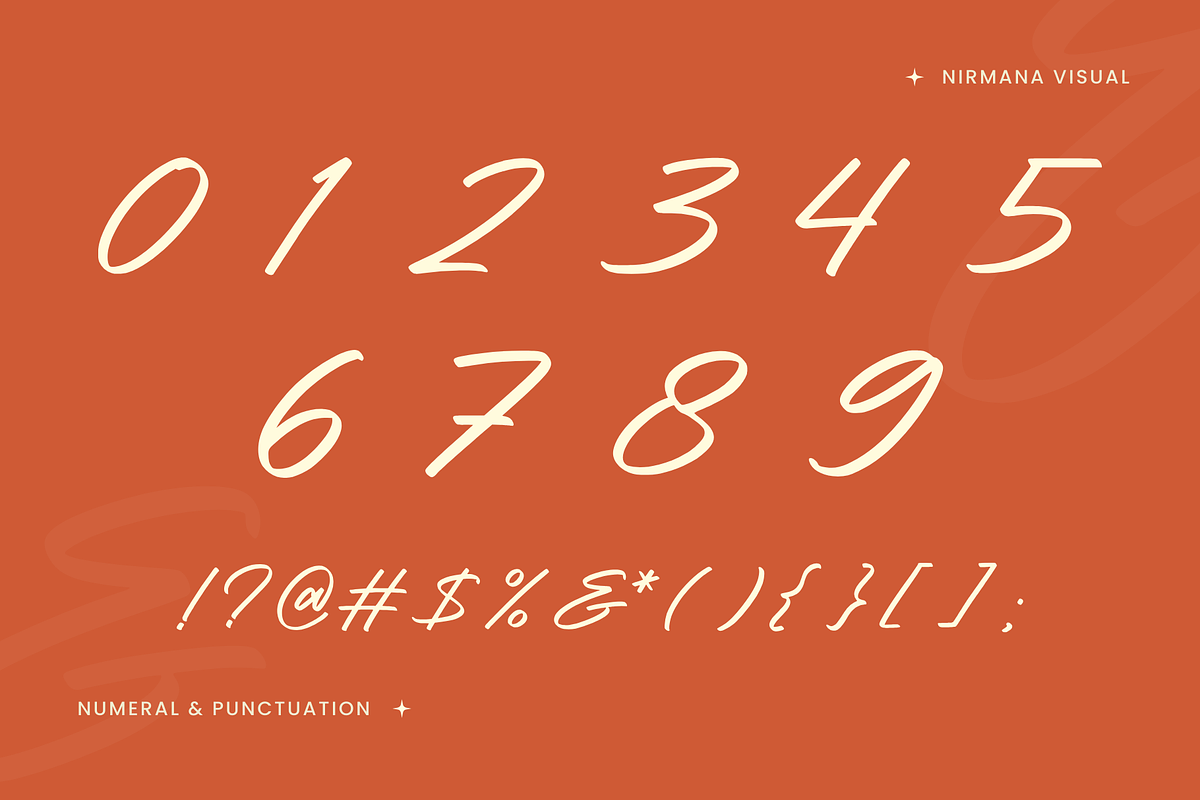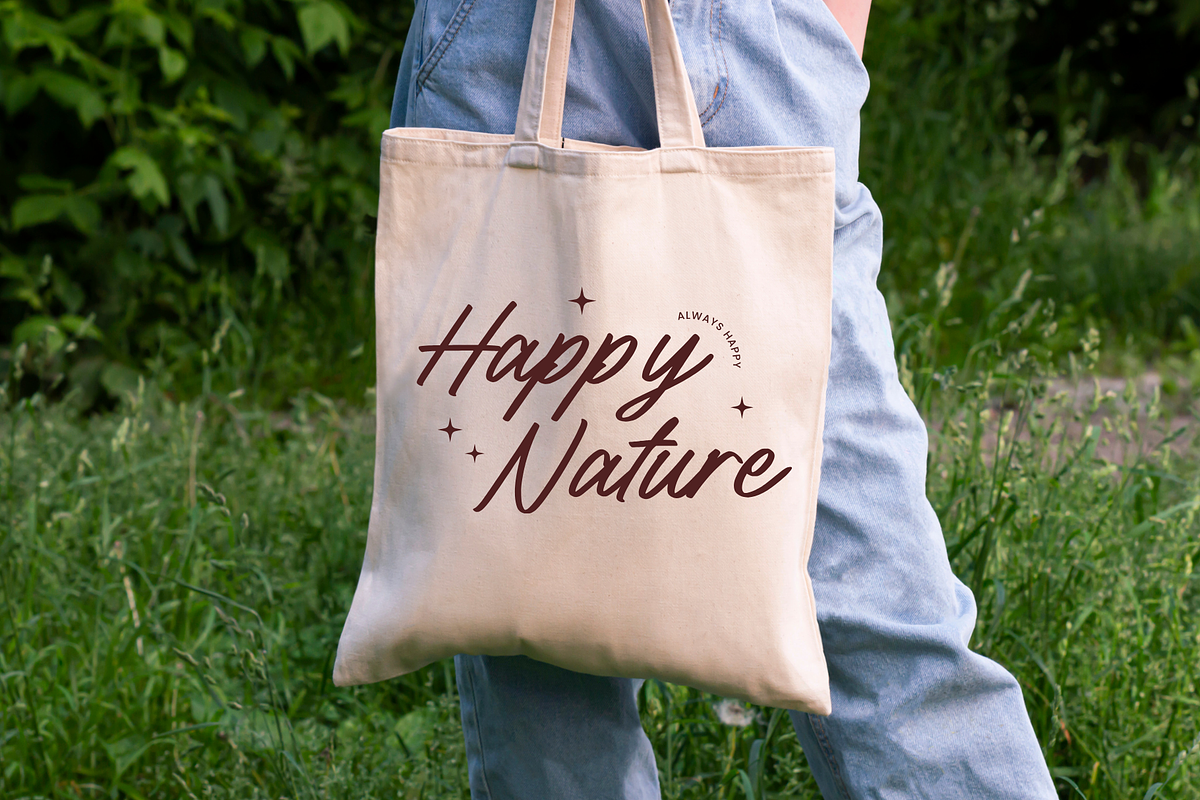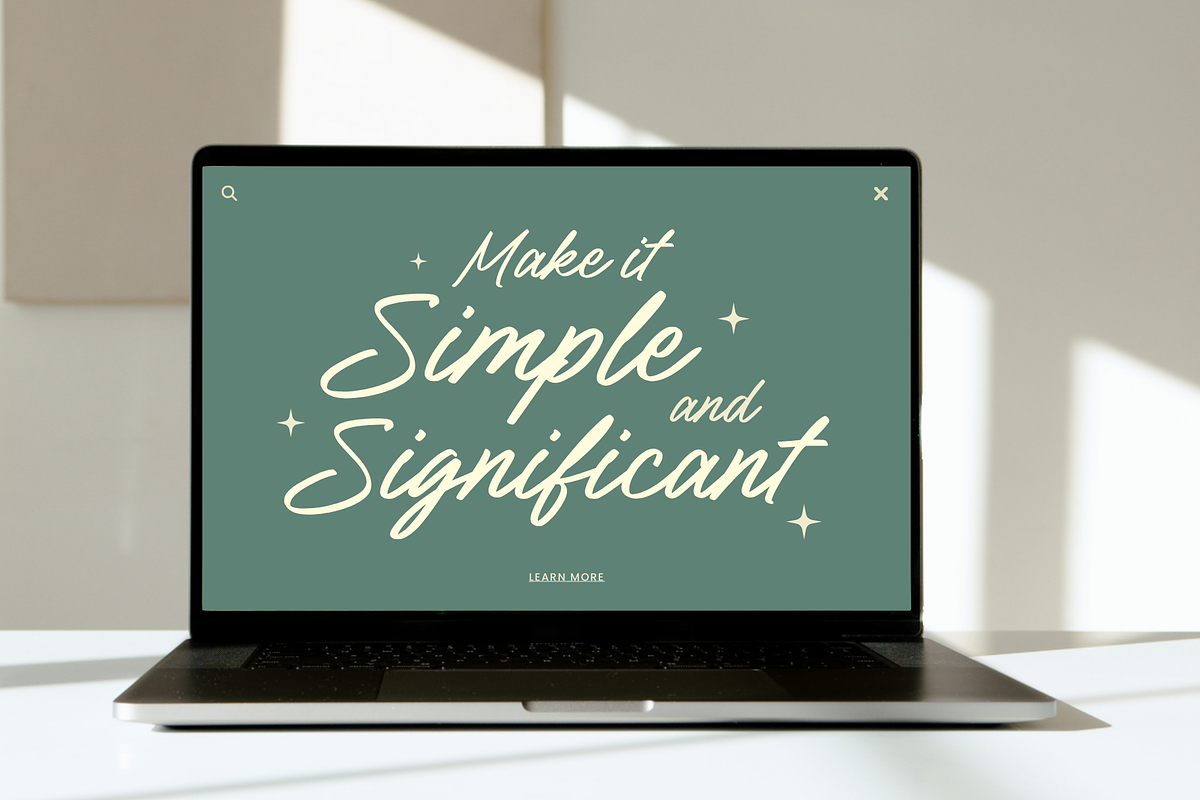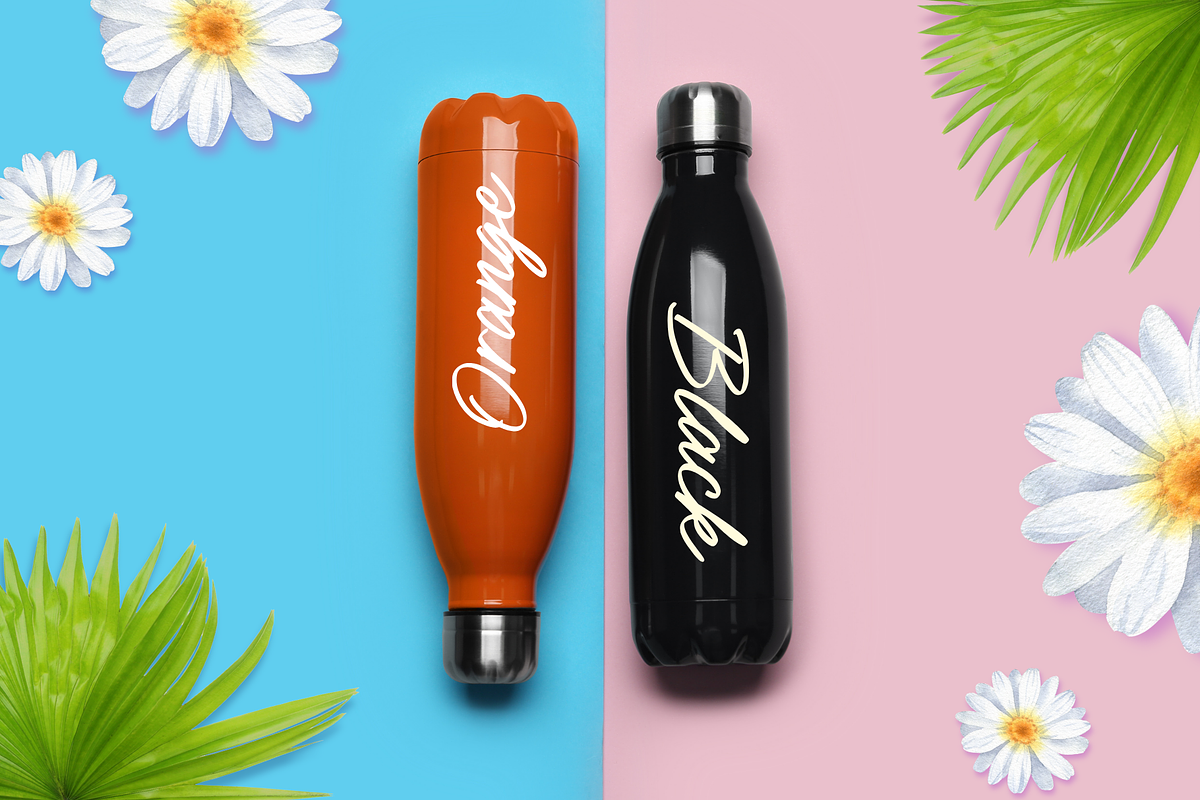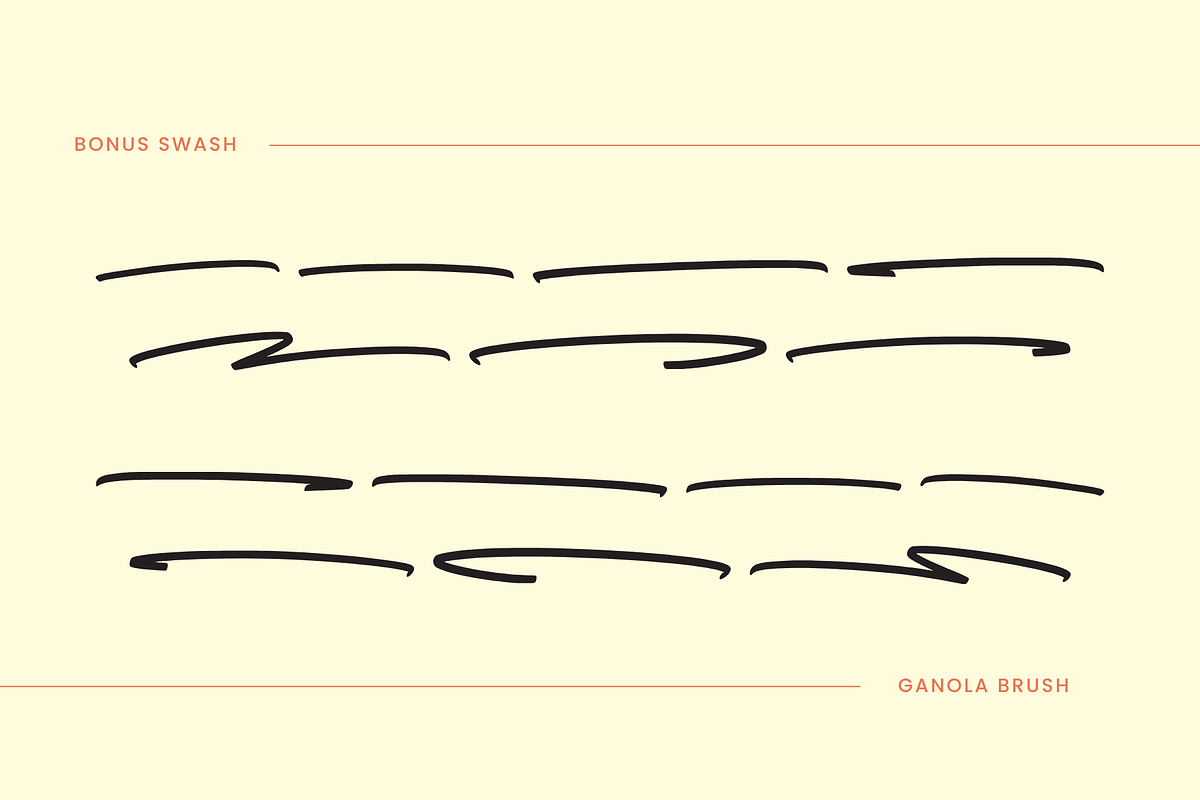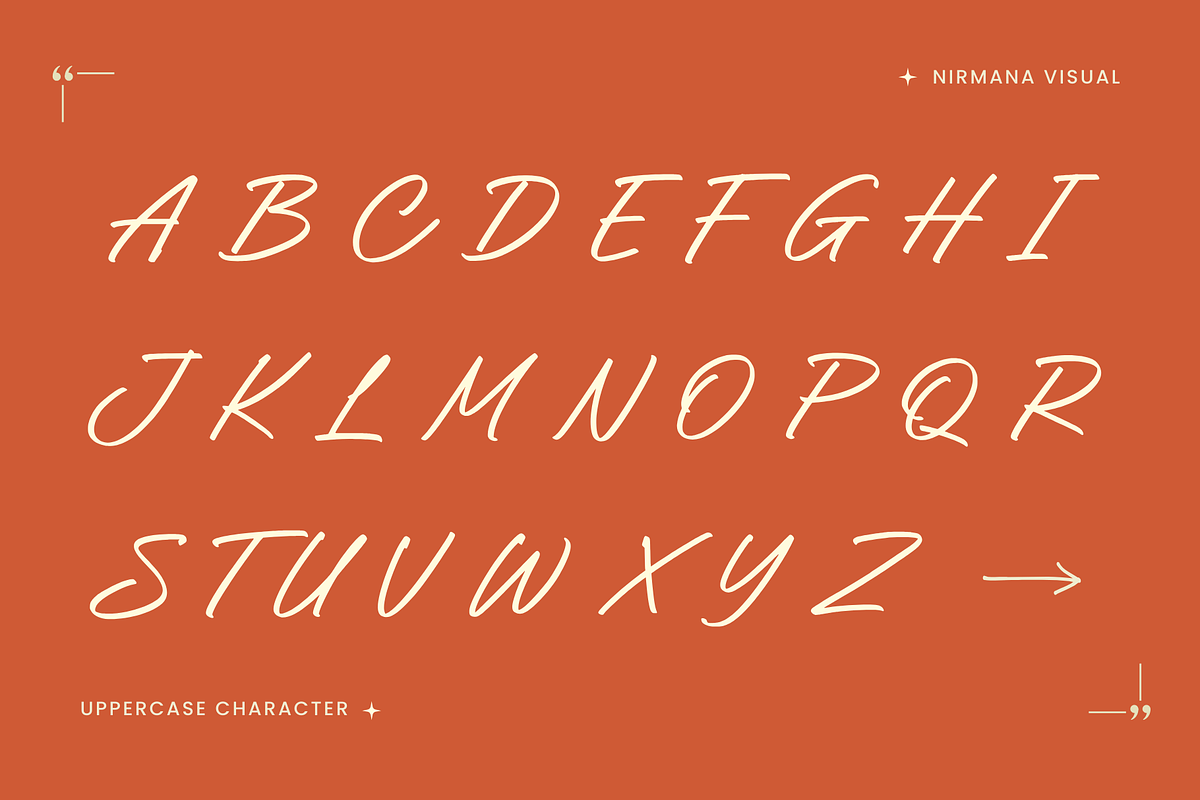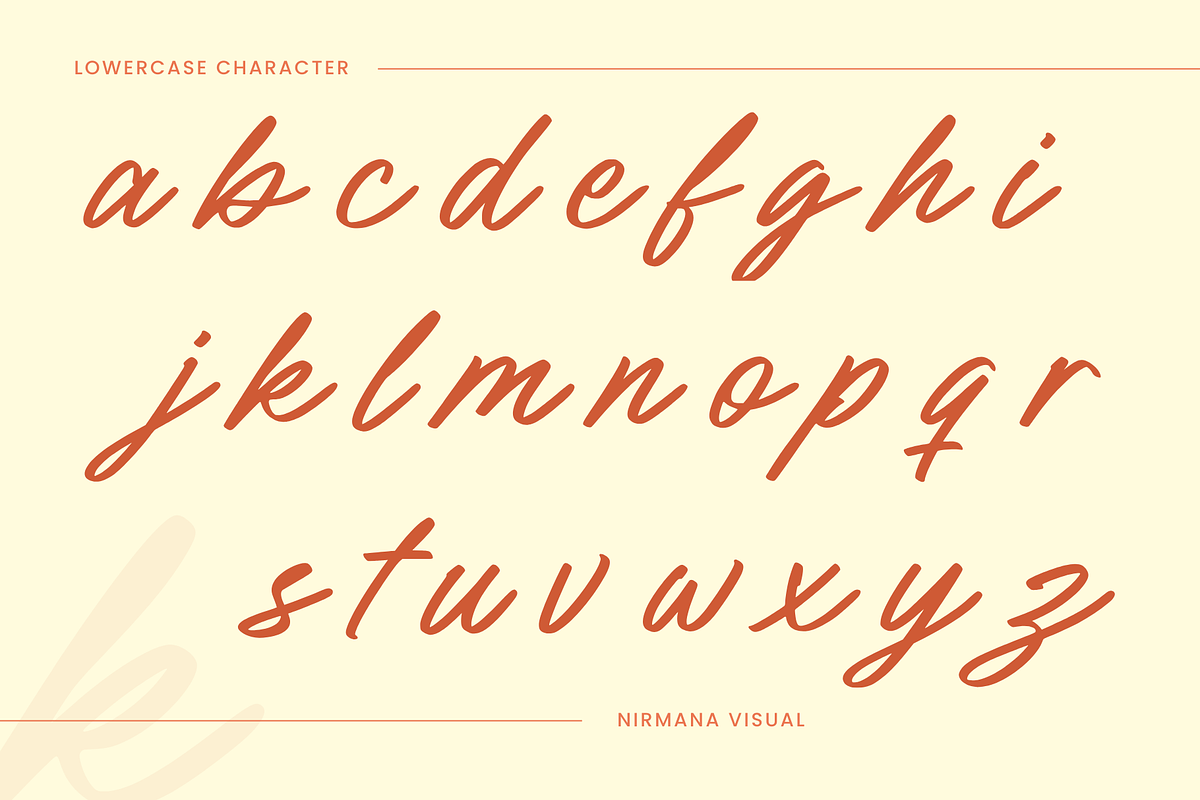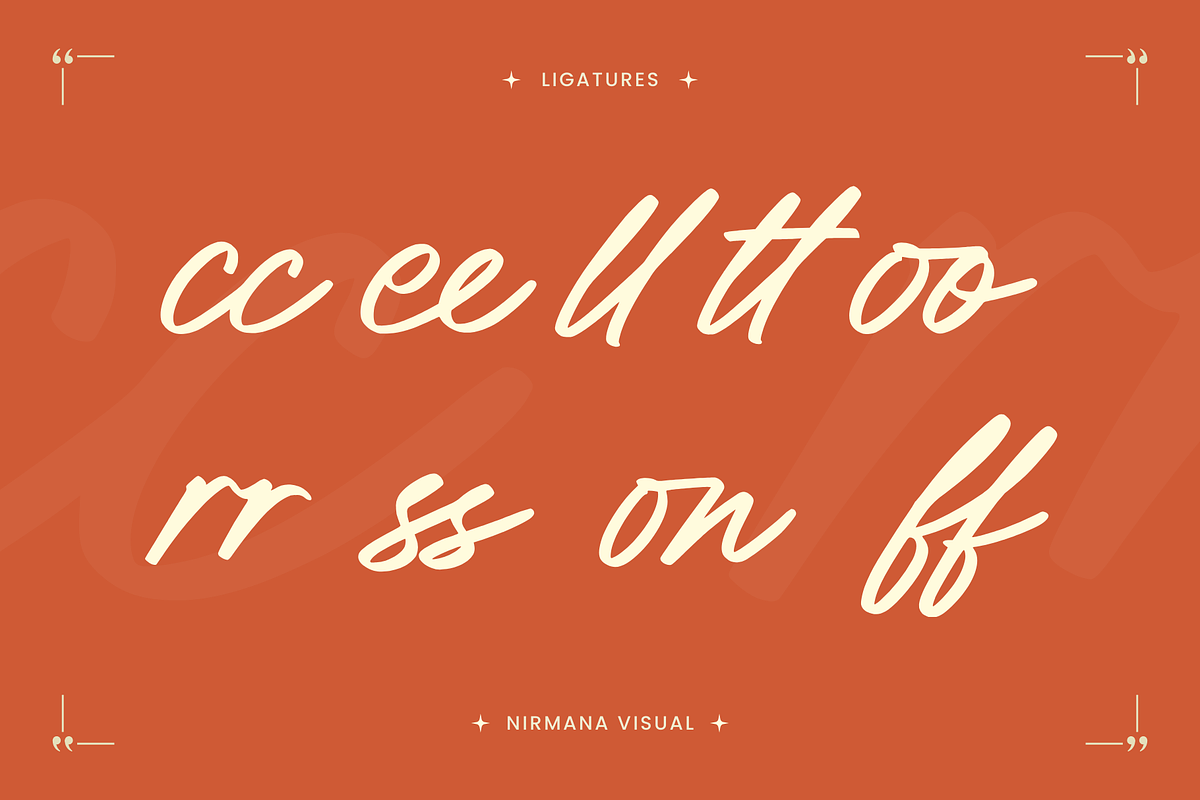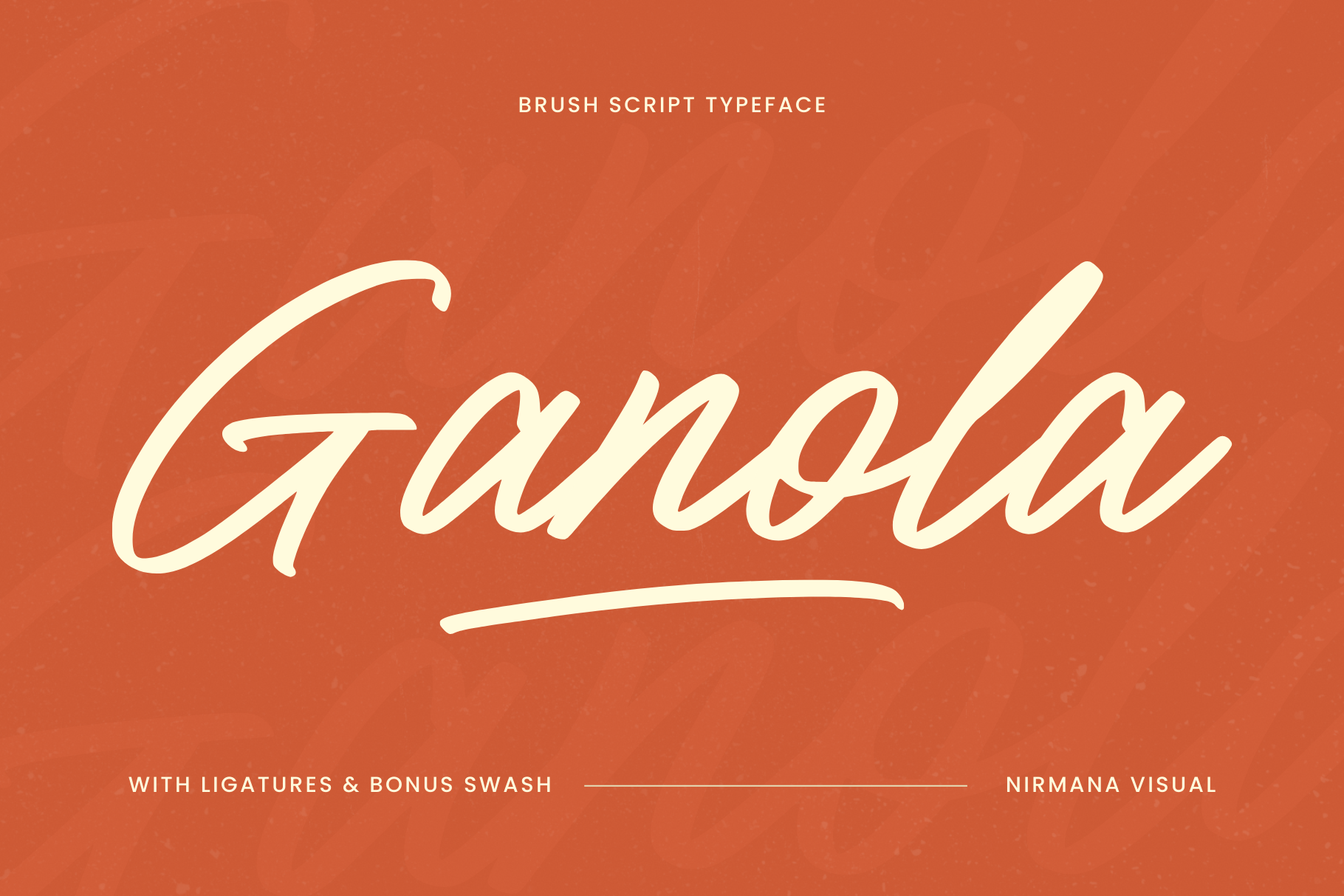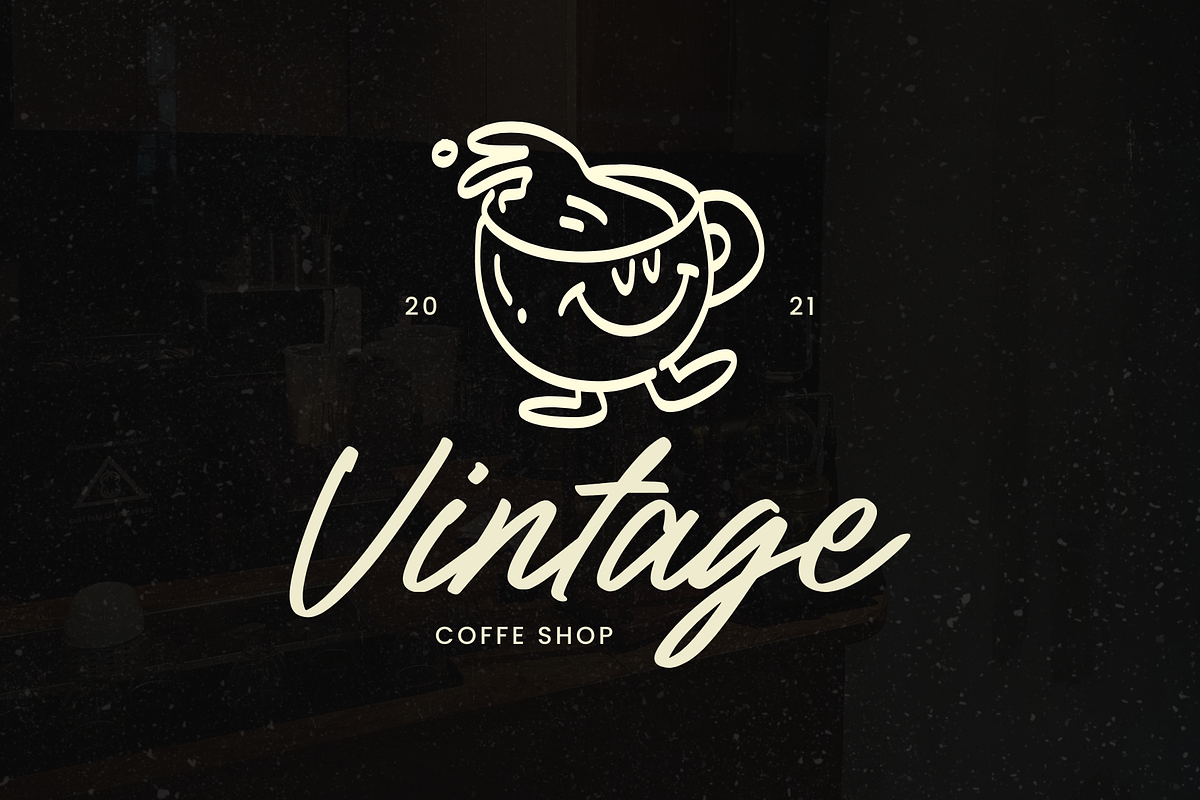
Ganola Brush - Branding Logo Font
Ganola is a sophisticated hand-lettering font that embodies a vintage script style with a stylish, flowing brush line. Designed for logo and branding applications, Ganola offers an elegant yet bold aesthetic, making it perfect for businesses seeking a classic yet modern appeal. Its fluid strokes and retro charm enhance brand identity, adding warmth and personality. Whether for packaging, signage, or merchandise, Ganola delivers a timeless and artistic touch with its handcrafted authenticity